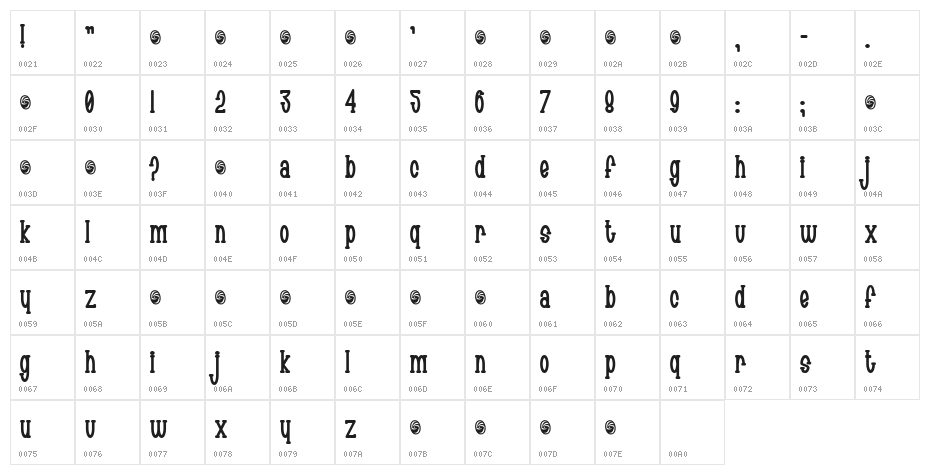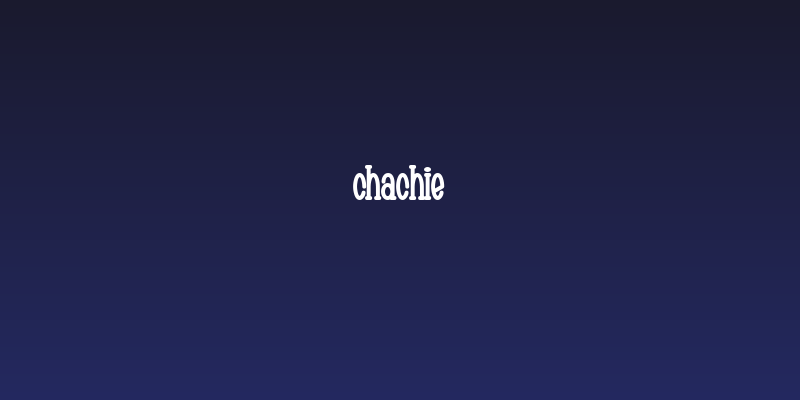
Chachie Font
Chachie Description
This font features a playful and whimsical design with a bold, rounded style. The characters are uniformly thick, giving it a strong presence. The letters have a slight curl at the ends, adding a touch of elegance and fun. The numbers and special characters maintain this playful aesthetic, making it suitable for creative and informal applications. The font's unique style is consistent across uppercase, lowercase, and numeric characters, ensuring a cohesive look in any design.